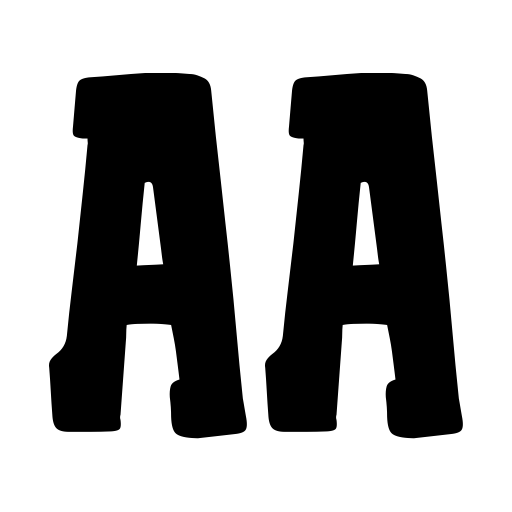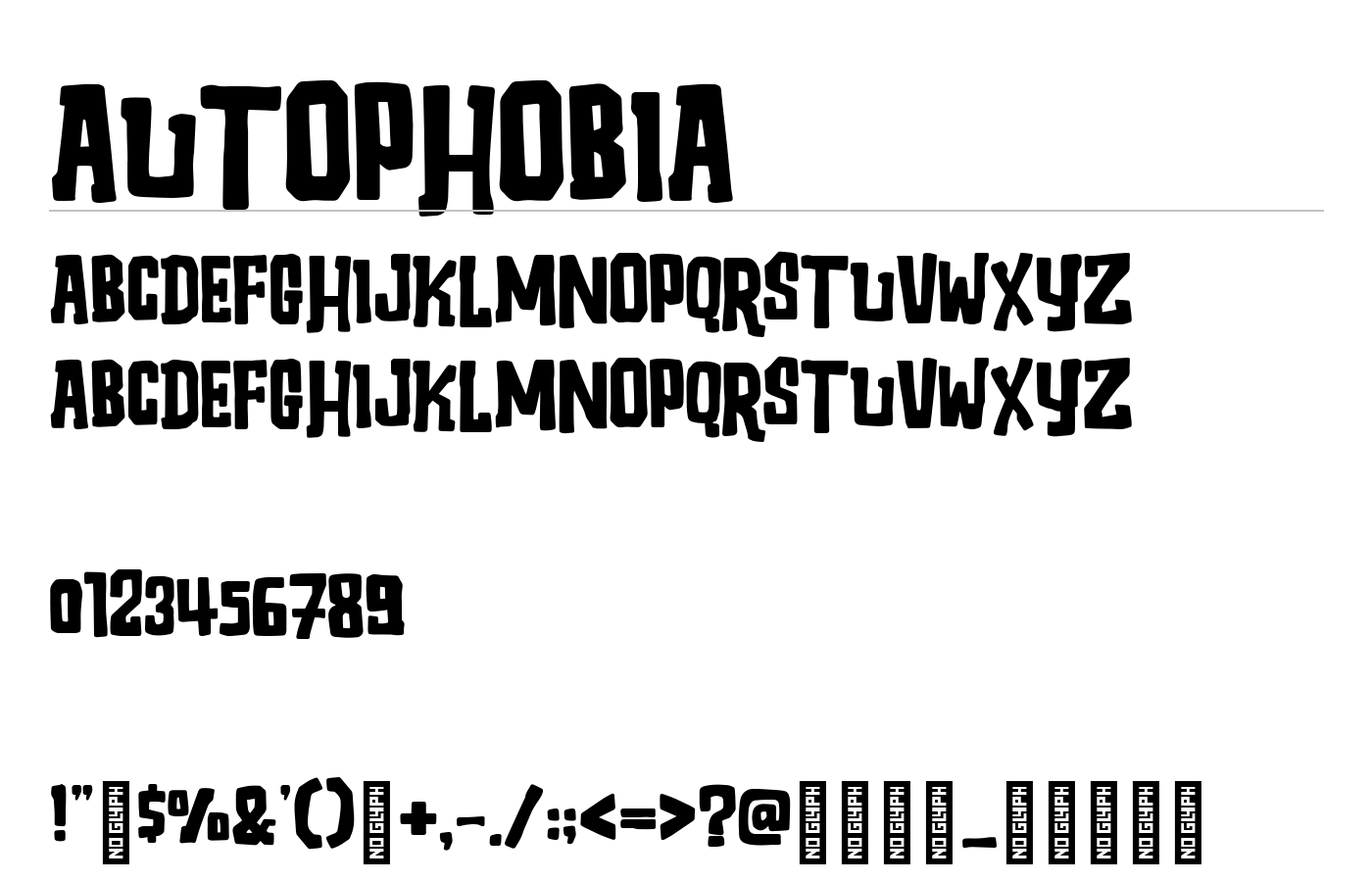
Autophobia is a bold and condensed sans serif font with a playful and quirky edge, characterized by its irregular, slightly wobbly letterforms that convey a hand-crafted feel. Its strong presence and high-impact style make it ideal for eye-catching headlines, posters, and branding that aim to stand out with personality and a fun, informal vibe. This font works best in creative and casual designs where uniqueness and a spirited tone are desired.
Autophobia Font
About Autophobia Font